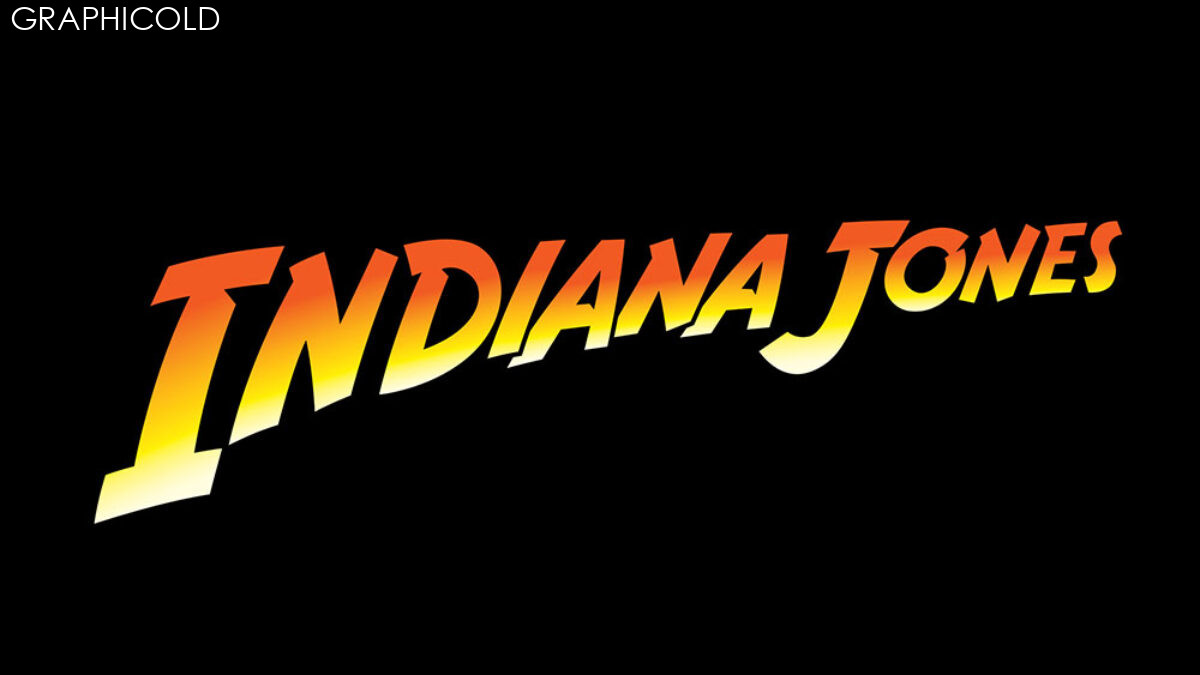
The indiana jones font – A Tribute to Adventure
Indiana Jones is an iconic character that has captured the imaginations of generations of moviegoers. The adventurer, played by Harrison Ford, has braved countless dangers and solved ancient mysteries on the big screen. His adventures have inspired everything from apparel to video games. And, of course, they’ve inspired fonts.
The Indiana Jones font is a tribute to the adventurer and his timeless sense of adventure. It’s a font that captures the spirit of travel, exploration, and the unknown. In this article, we’ll explore the history of the Indiana Jones font, what makes it so unique, and how it can be used in your own designs.
The History of the Indiana Jones Font
The Indiana Jones font was created by the designer Jens R. Ziehn in 1993. Ziehn was inspired by the title sequences of the Indiana Jones movies, which featured a distinctive font that looked like it was hand-drawn with a pen. The font was also used on the posters and marketing materials for the movies.
Ziehn set out to create a digital version of the font that captured the same sense of adventure and mystery. He spent months studying the original title sequences and experimenting with different styles. Finally, he settled on a design that was faithful to the original but also had its own unique qualities.
The Indiana Jones font features bold, hand-drawn letters that look like they were written with a quill or a brush. The letters have irregular edges that give them a rough, organic feel. The font also features a unique set of ligatures (letters that are joined together) that give it a distinctive look.
What Makes the Indiana Jones Font So Unique?
The Indiana Jones font is unique for several reasons. First, it captures the sense of adventure and exploration that is so central to the Indiana Jones brand. The font looks like it was written by a traveler on the road, capturing the spirit of discovery and the unknown.
Second, the font is highly readable and versatile. It can be used for a wide variety of applications, from movie posters to book covers to event invitations. The bold, hand-drawn letters make it easy to read even at small sizes, while the ligatures give it an extra touch of character.
Finally, the Indiana Jones font is simply cool. It’s a font that inspires a sense of adventure and excitement, and it’s been used in countless designs over the years. Whether you’re a fan of the movies or just love the look of the font, it’s a great addition to any designer’s toolkit.
How to Use the Indiana Jones Font in Your Designs
The Indiana Jones font can be used in a wide variety of designs. Here are a few ideas to get you started:
– Movie posters: The Indiana Jones font was originally designed for movie posters, so it’s a natural choice for any film-related design.
– Book covers: The font’s sense of adventure makes it a great choice for adventure or travel books.
– Event invitations: Use the font to give your invitations a touch of old-world charm.
– T-shirt designs: The bold, hand-drawn letters make the font perfect for t-shirt designs.
– Digital designs: The font works great on websites, social media graphics, and other digital designs.
In conclusion, the Indiana Jones font is a timeless tribute to adventure and exploration. Whether you’re a fan of the movies or just love the look of the font, it’s a great addition to any designer’s toolkit. So go forth and explore!